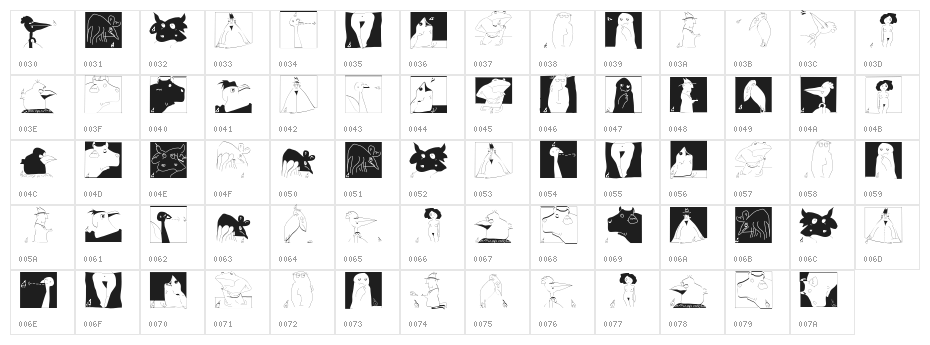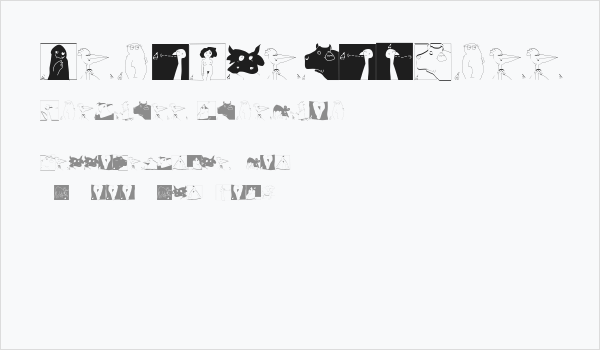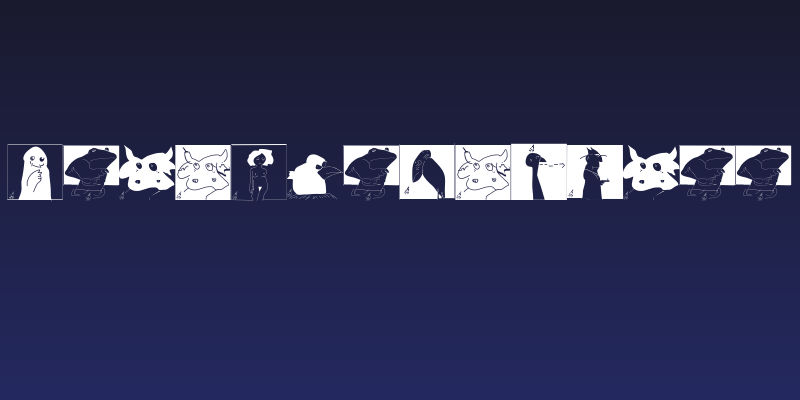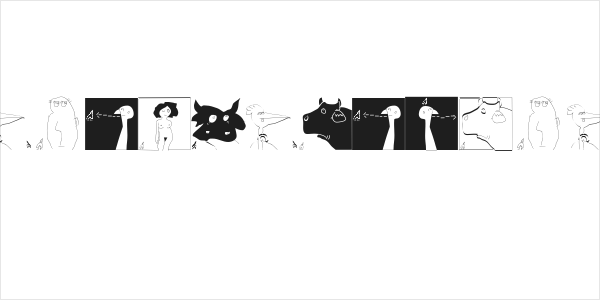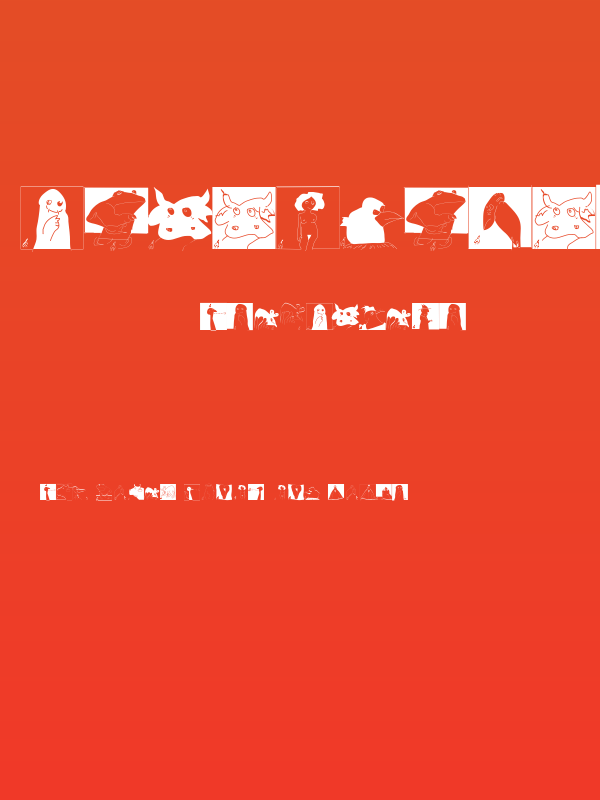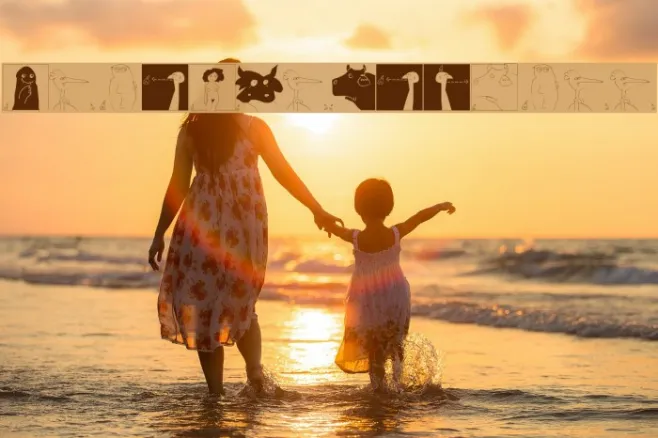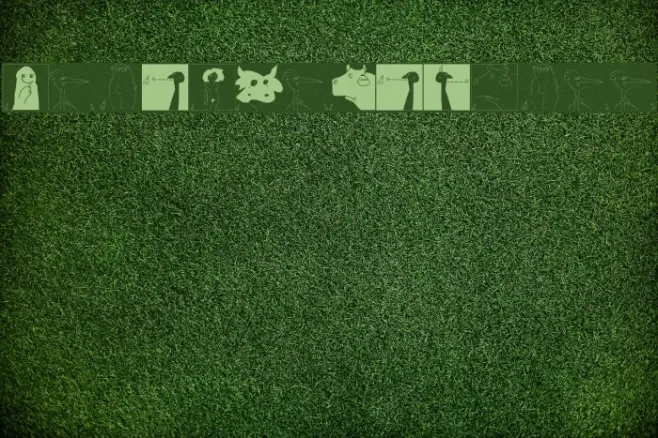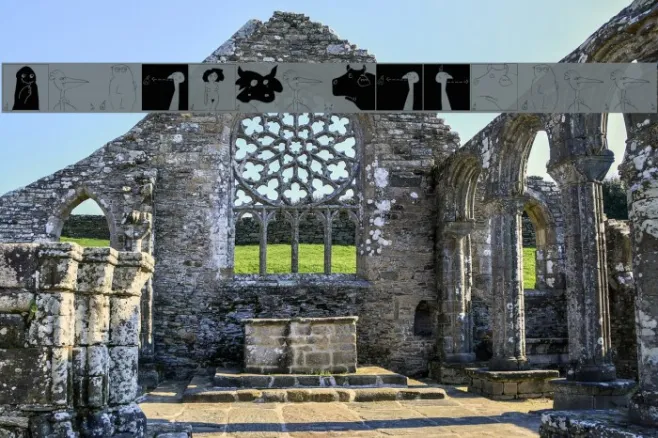
GernKleinThree Font
GernKleinThree Description
A highly decorative and whimsical set of illustrated characters, each glyph represented by a unique hand-drawn cartoon or creature, alternating between black and white backgrounds for visual contrast. The style is playful and artistic, with no traditional typographic features.
| Overall Style | Whimsical, Artistic, Playful, Decorative |